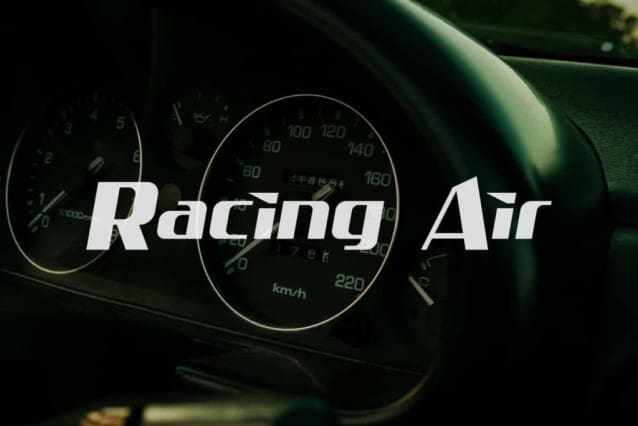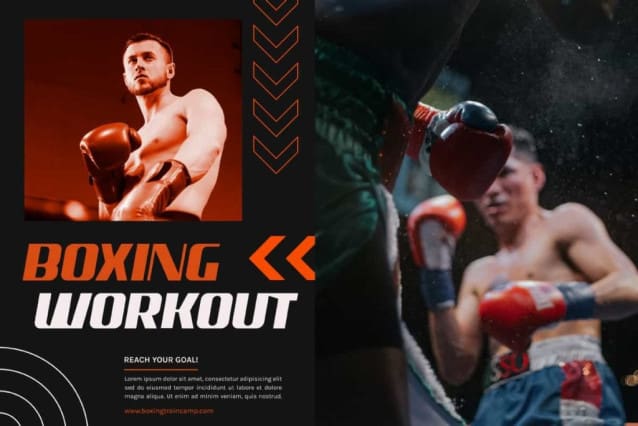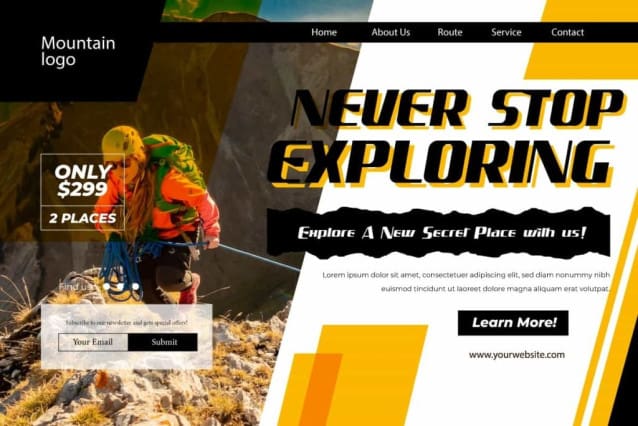
Racing Air Font
Racing Air Font is a fast racing display font with classic simple looks. This font has bold characters with a unique shape that is its own characteristic. It will suits many designs, such as cover, custom design, invitation, label, product packaging, poster, quote, signage, stationery, website, and more!
Racing Air Font includes full set of Uppercase and Lowercase Basic Characters, Numerals and Punctuation. This font can make your design more attractive and will be suitable for many industries, such as accessories, advertising, event or festival, fashion, furniture, game, movie, photography, sport, etc.